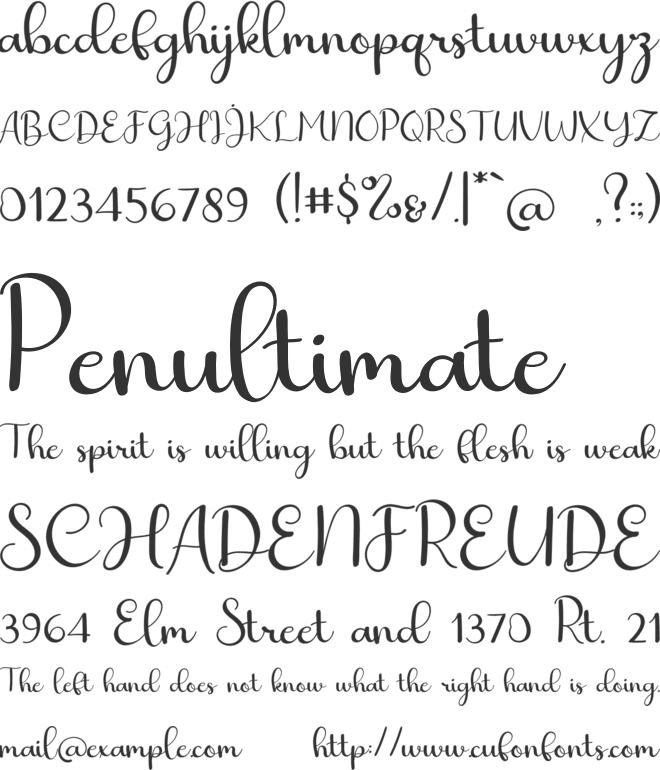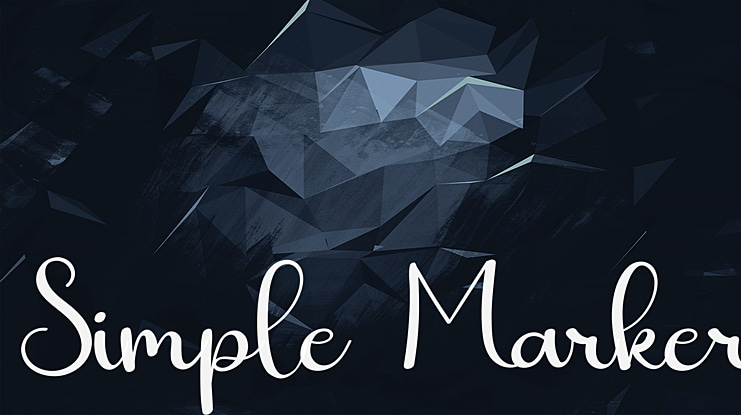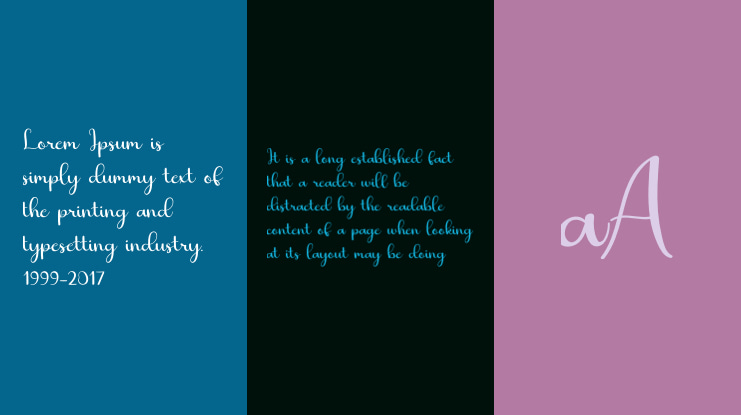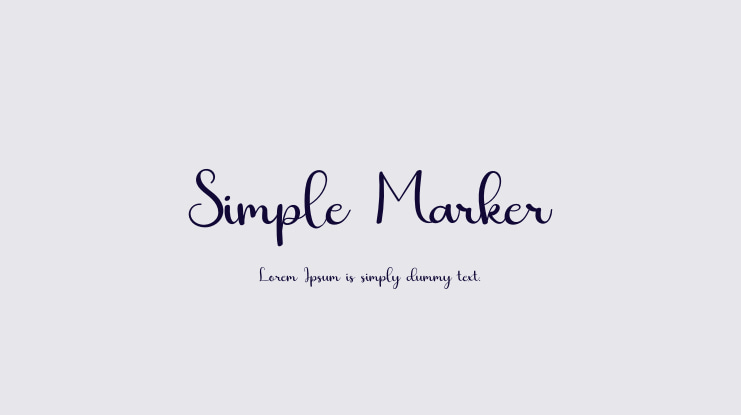
Simple Marker Font
Simple Marker feels equally charming and elegant. It looks stunning on wedding invitations, thank you cards, quotes, greeting cards, logos, business cards and every other design which needs a handwritten touch.